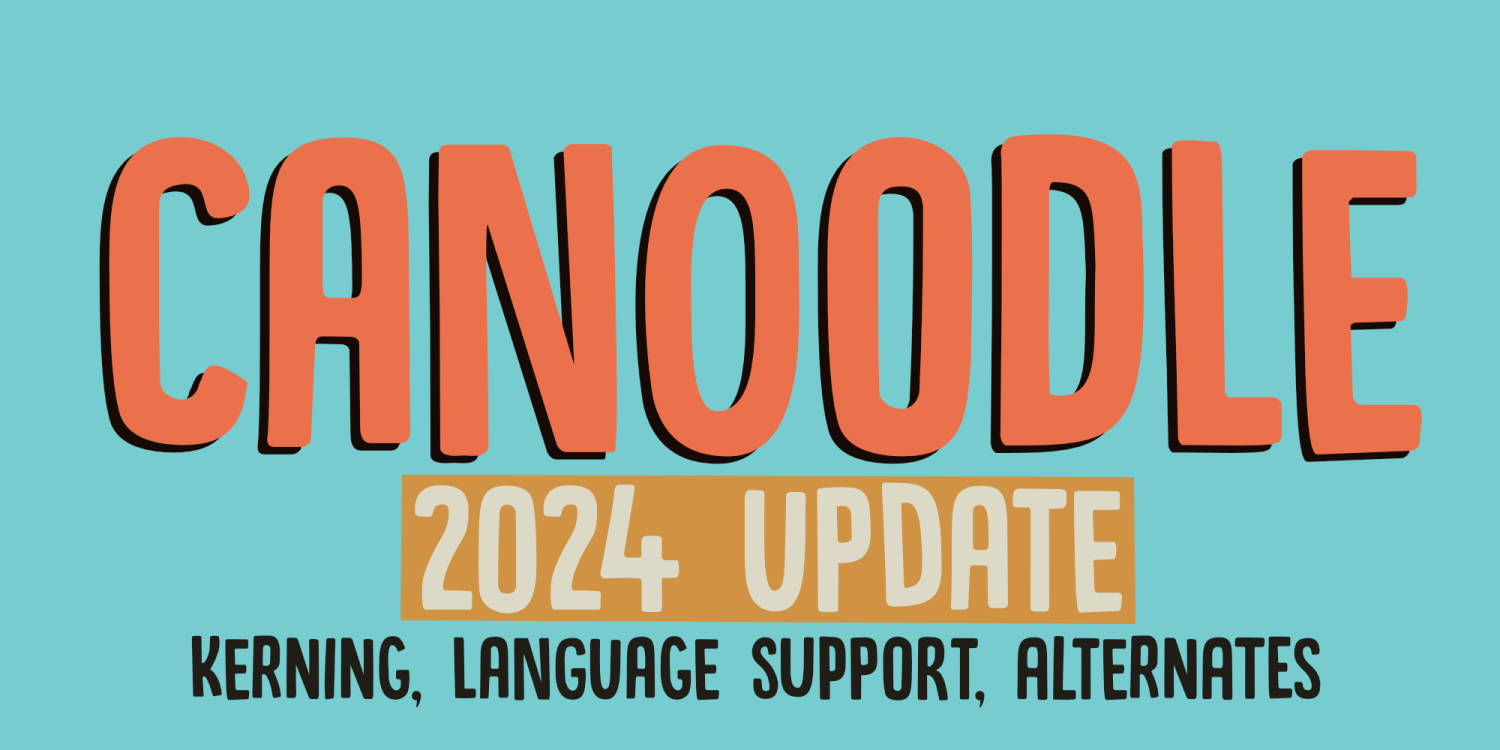
Canoodle
About Canoodle
To canoodle means to hug and kiss passionately. I leave the rest to your imagination. Canoodle is also a very adorable font – some would even go as far as calling it kissable. It is an all caps typeface, but upper and lower case differ and love to mix…